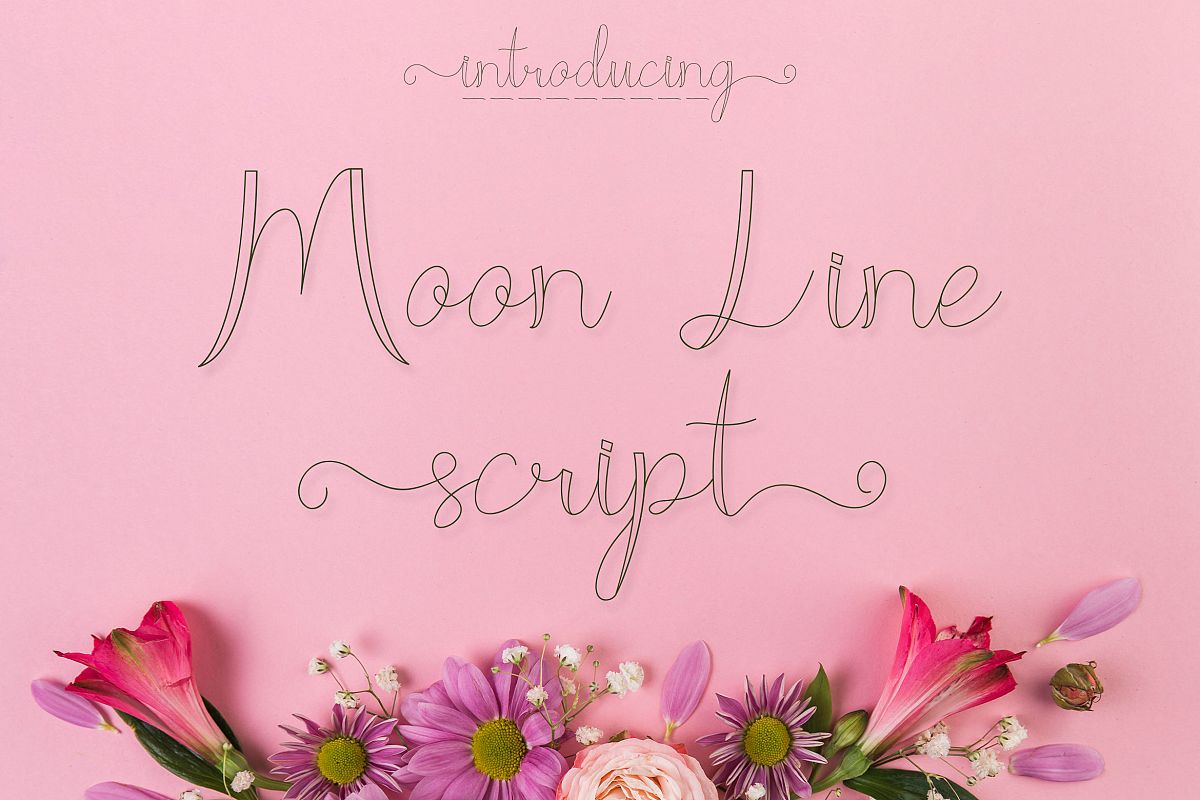
Introducing Moon Line Script - Line Script Font, beautiful font for crafts, branding, invitations, cloths design and many more.
Included :- Uppercase,
- Lowercase,
- Numbers,
- Punctuation/Symbols,
- Multilingual Support.
- a to z lowercase alternates
- Ligatures and some alternates